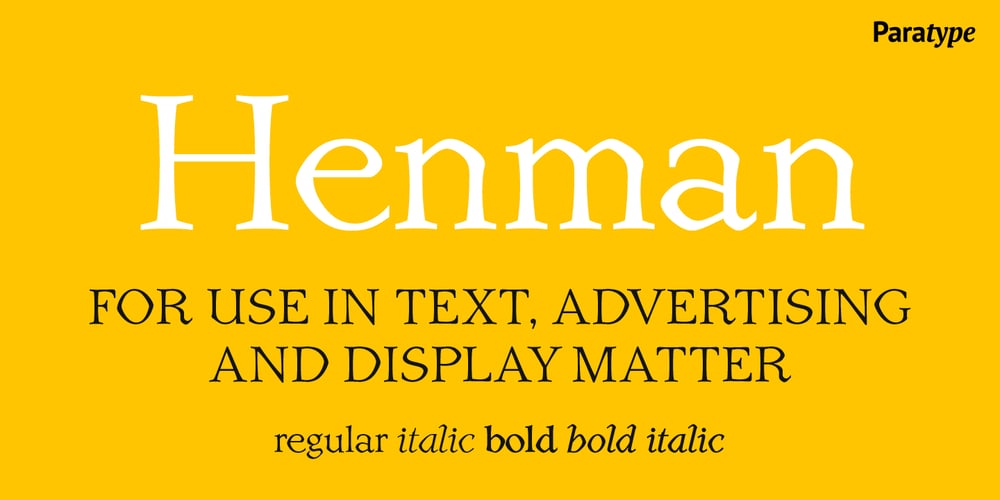
Henman
Henman font
Henman Font Family was designed by Manvel Shmavonyan and published by ParaType. Henman contains 4 styles and family package options. Based on the late 1970s artwork by outstanding Armenian type designer Henrik Mnatsakanyan (1923-2001). That was the only design created by Mnatsakanyan for Latin and Cyrillic. Digital version with adding the missing characters was designed for ParaType in 2003 by Manvel Shmavonyan. The font name Henman proposed by Mnatsakanyan is formed of the first three letters from the each designer’s name: HENrik and MANvel. Some fractured elements make the face informal and a little bit funny. For use in text, advertising and display matter.